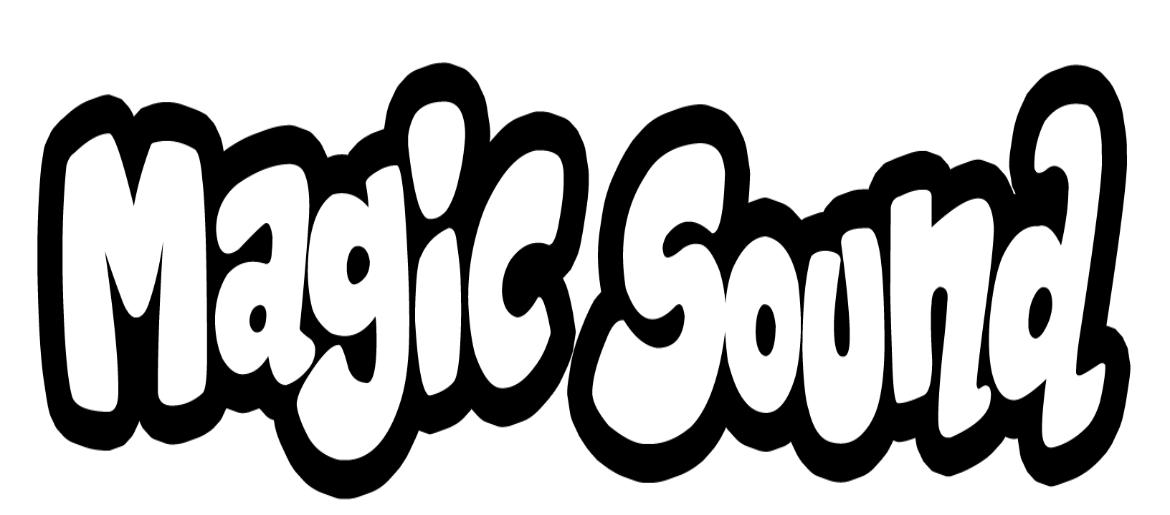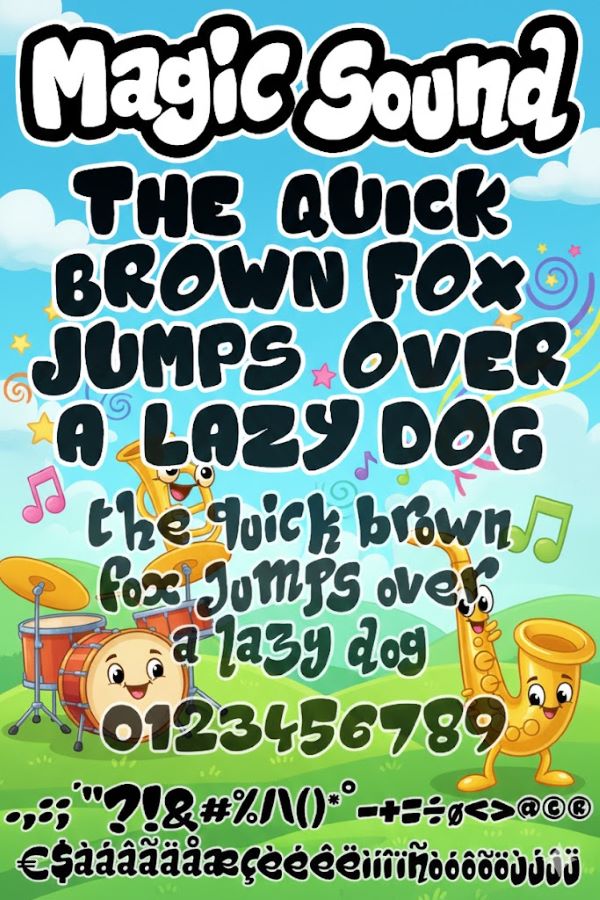
Magic Sound
magic sound font
Magic Sound Font is a fun cartoon-style typeface with lively shapes and playful energy. Its whimsical design makes it perfect for kids’ projects, comics, posters, logos, and colorful graphics that need a magical, cheerful, and expressive look.
➤ Font Name: Magic Sound
➤ Designer: Imagex
➤ Style: Cartoon